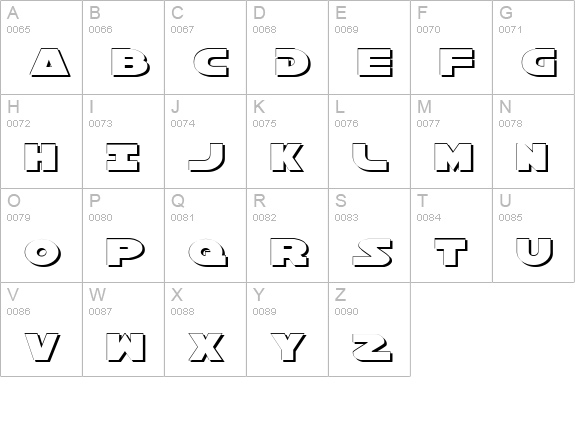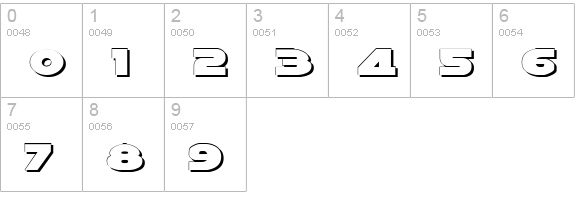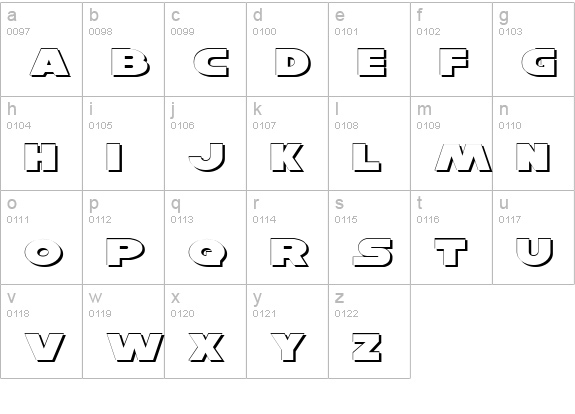
Han Solo Expanded Shadow Font Details
Han Solo Expanded Shadow is a distinctive, extended-width variant in the Han typeface family \xE2\x80\x94 well suited to design and typography projects.
Introducing the Han Solo Expanded Shadow font, a captivating and versatile typeface that brings a touch of rebellion and adventure to your design projects. This extraordinary font pays homage to the iconic Han Solo character from the Star Wars saga, capturing his daring spirit and charisma in every letterform. The Han Solo Expanded Shadow font is a perfect blend of boldness and elegance, making it suitable for a wide range of creative applications. From movie posters and book covers to branding projects and social media graphics, this font adds a sense of excitement and authenticity to any design. With its distinctive shadow effect, the Han Solo Expanded Shadow font creates a striking visual impact and adds depth to your typography. The elongated and angled shadows create a sense of movement, giving your words a dynamic and energetic appearance. What makes this font truly special is that it is freely available to download at FontsMarket.com. Yes, you read that right! You can now unleash your creativity without any restrictions or limitations. This means that you can use the Han Solo Expanded Shadow font in personal or commercial projects without worrying about licensing fees or usage restrictions. So, what are you waiting for? Embrace your inner rebel and let the Han Solo Expanded Shadow font take your designs to a galaxy far, far away. Download it today at FontsMarket.com and let your imagination soar. May the force of creativity be with you!